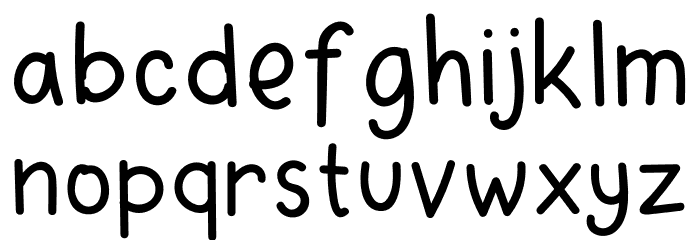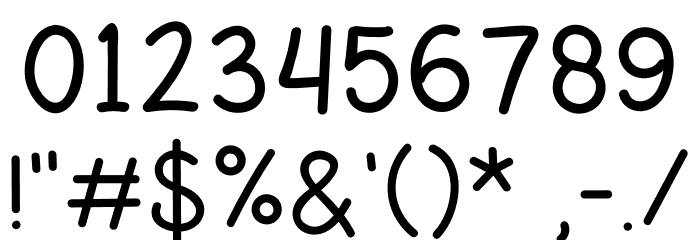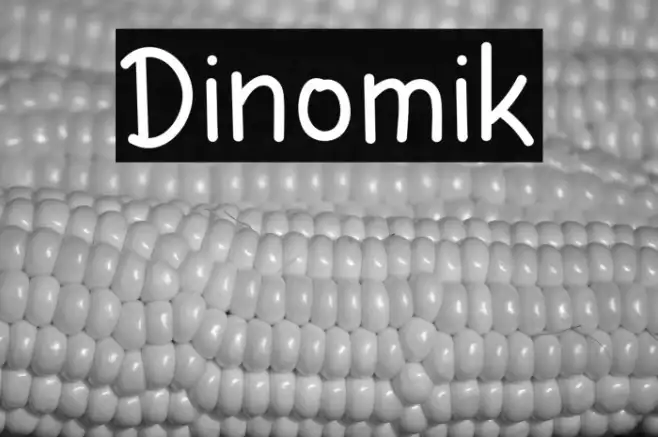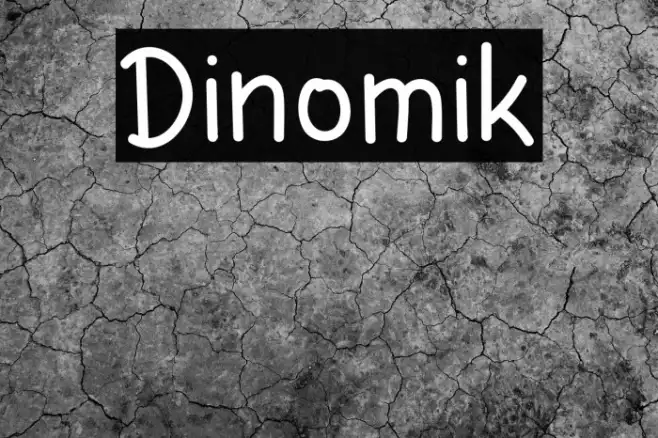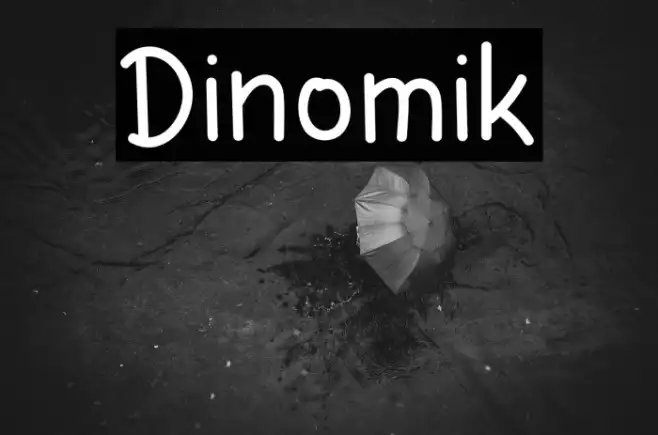
Dinomik Font
This playful and whimsical font features rounded, slightly irregular letterforms that give it a hand-drawn appearance. The uppercase and lowercase letters maintain a consistent style, with a friendly and approachable feel. The numbers and special characters are designed to match the overall aesthetic, making it versatile for various uses. Its informal style is perfect for projects that require a touch of personality and creativity. The font's simplicity and charm make it suitable for children's books, casual invitations, and fun branding projects.
A playful, hand-drawn font with rounded, irregular letterforms.
- Proposed Projects: Ideal for children's books, casual invitations, playful branding, and creative projects.
- Overall Style: Playful
- Use Case: Headlines, Logos, Informal Text